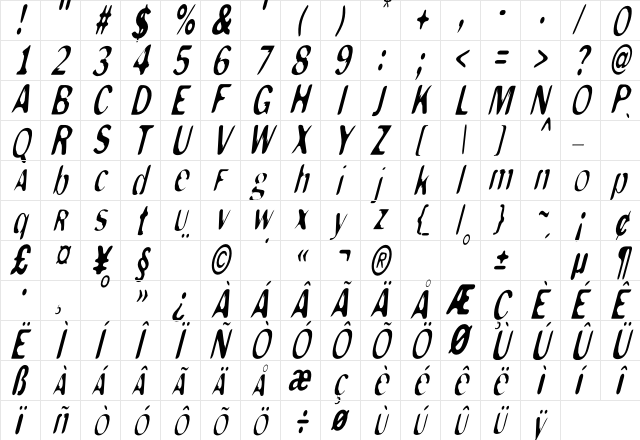
MonkeyCaughtStealing ElongOblique
Design Context for MonkeyCaughtStealing Typeface
MonkeyCaughtStealing offers clean, dependable letterforms without strong stylistic allegiance, making it a practical choice for designers who need flexibility. Its italic angle brings a sense of urgency and motion to the letterforms.
Pro Tip: Use MonkeyCaughtStealing for emphasis, pull quotes, and subheadings where its slanted energy can add rhythm to the layout.